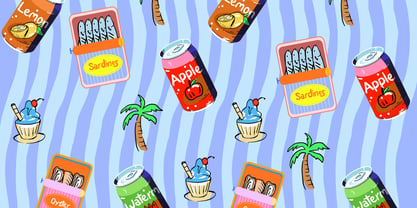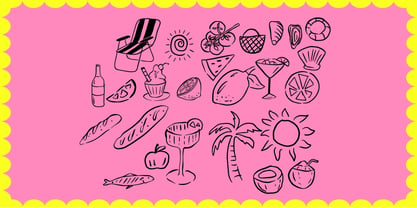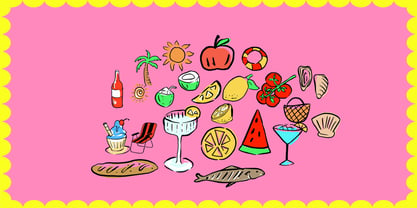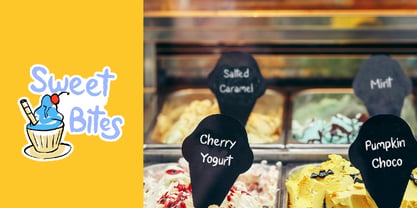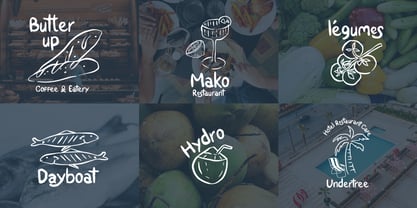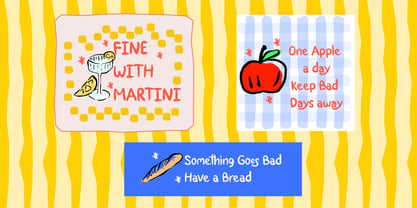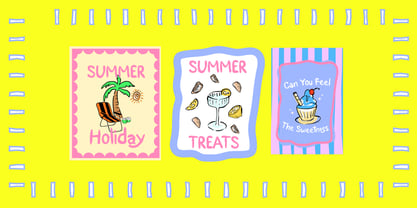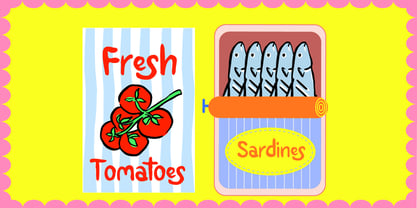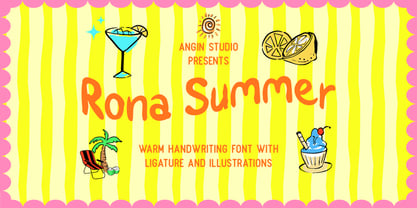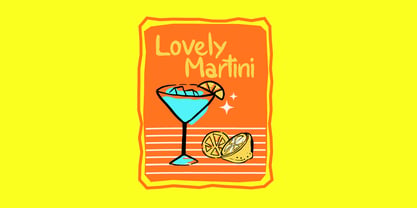
Rona Summer
A família de fontes Rona Summer foi desenhada por Ahmad Aswin, David Novrian e publicada pela Angin Studio. Rona Summer contém 1 estilos. Saiba mais sobre esta família
When the world strive for perfection, and the standard of perfection growth following the growth of technology, Human touch with imperfection becomes a luxury.
Introducing Rona Summer, a warmth handwriting font, each stroke created by hand, a gritty edge and raw stroke once called a flaws now becomes a features. When digital precision feels too cold, Rona Summer brings raw emotion, human touch, and unmistakable character back to your creative work. Rona Summer comes with an alternates, ligature and multilingual features, also a pack of hand drawn illustrations.
This imperfect fonts, created 100% by human.
Designers: Ahmad Aswin, David Novrian